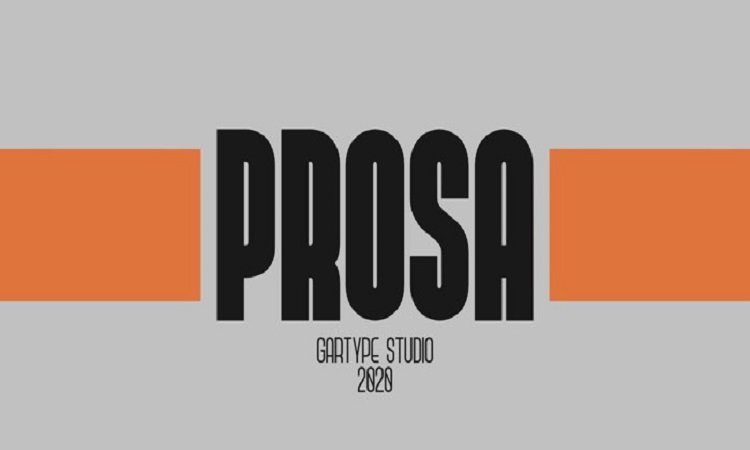
Prosa Sans Serif Font
Prosa Sans Serif Font is a big and bold font that’s great for attention grabbing headlines. It comes in regular, press and rocky styles. It includes uppercase multilingual letters, punctuation and numerals. Made from font designer named Gartype Studio. It’s a bold and unique display font. Masterfully designed to become a true favorite character, you could used for user interface, titling, branding, logo, film title, big title, promotion, etc.